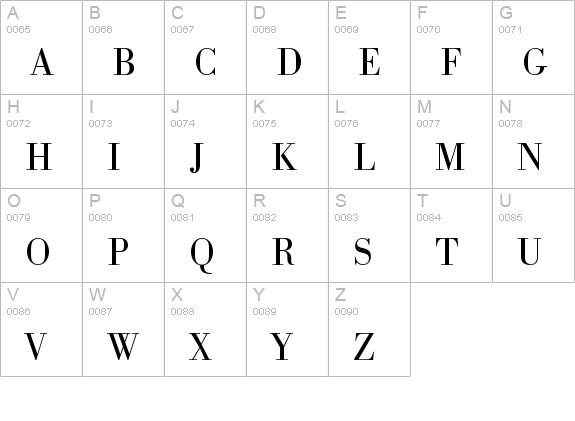
BodoniEF-Light is a refined, elegant variant in the BodoniEF typeface family \xE2\x80\x94 well suited to elegant body text, refined sub-headings, and luxury branding.
BodoniEF-Light font is a timeless and elegant typeface that exudes sophistication and refinement. With its slender serifs and clean lines, this font is perfect for conveying a sense of luxury and class in your design projects. The delicate strokes of BodoniEF-Light font make it ideal for use in headings, titles, and other display text where you want to make a bold statement. What's even better is that BodoniEF-Light font is completely free to download at FontsMarket.com. You can easily access this exquisite font and elevate your designs with its classic charm. Whether you're working on branding, invitations, or editorial layouts, BodoniEF-Light font will add a touch of elegance and finesse to your work. Don't miss out on the opportunity to enhance your designs with this beautiful typeface that is both timeless and free to use.